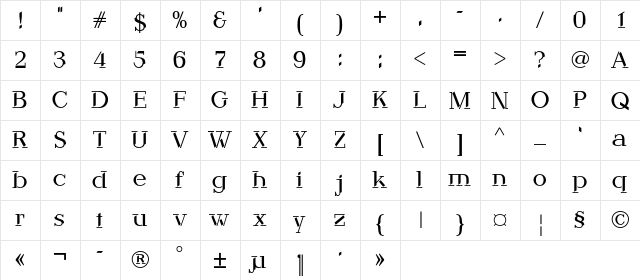
Debby Regular Font Preview
Debby Regular
Debby Regular Font Details
Design Context for Debby Typeface
Debby offers clean, dependable letterforms without strong stylistic allegiance, making it a practical choice for designers who need flexibility.
Pro Tip: Pair Debby with a font of contrasting weight or personality to build a more expressive typographic hierarchy.